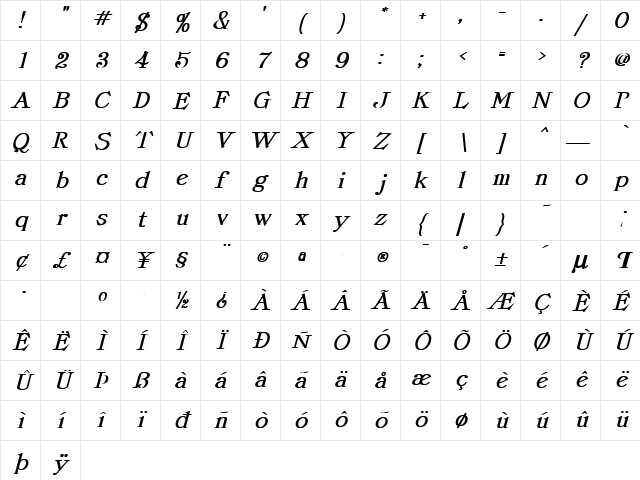
ProvLite-BoldIt Normal Free Font
ProvLite-BoldIt Normal
Complete ProvLite-BoldIt Normal glyph index. Displaying only characters natively supported by ProvLite-BoldIt Normal font.
Design Context for ProvLite-BoldIt
ProvLite-BoldIt is a composed and adaptable typeface that performs quietly and consistently across a wide range of design contexts. Its bold stroke weight gives it real presence on the page.